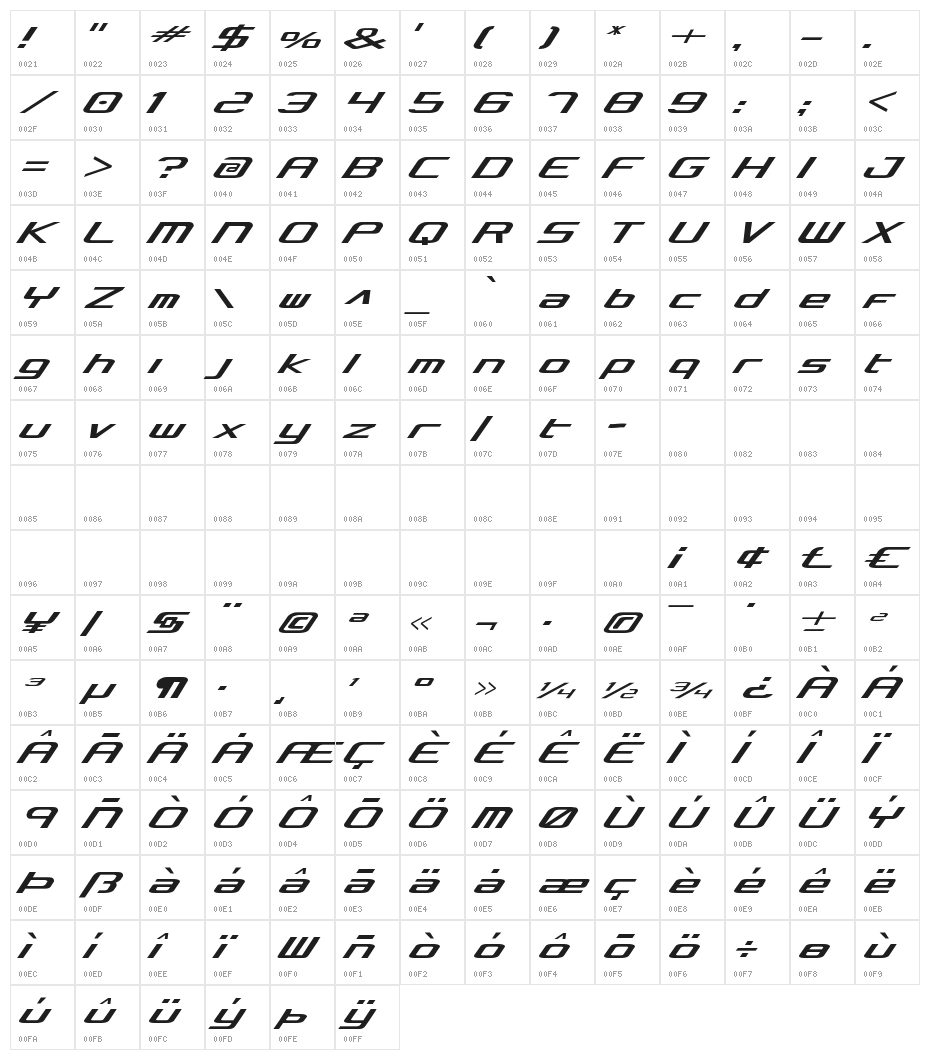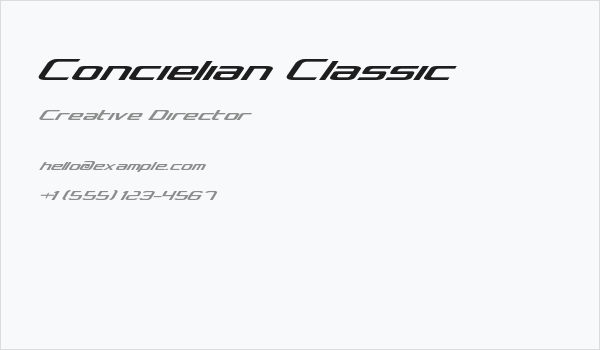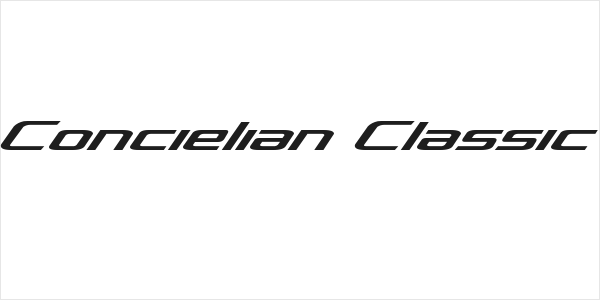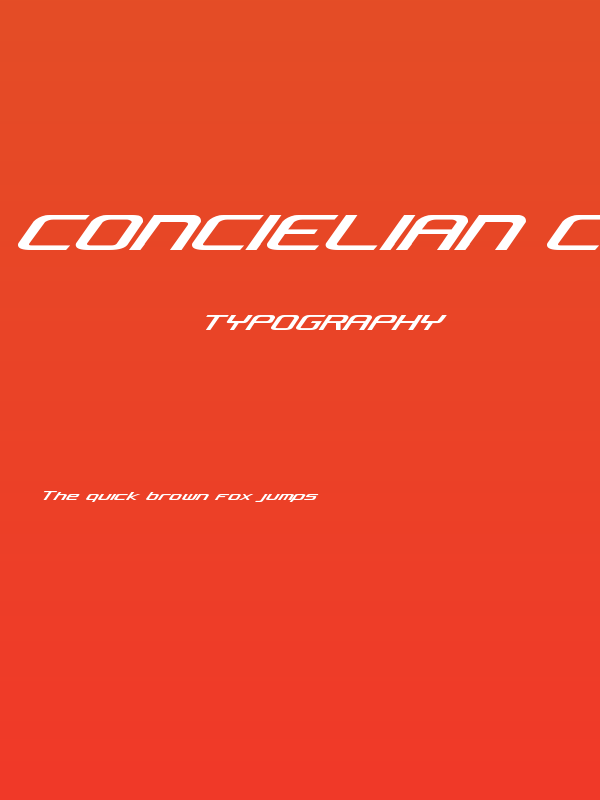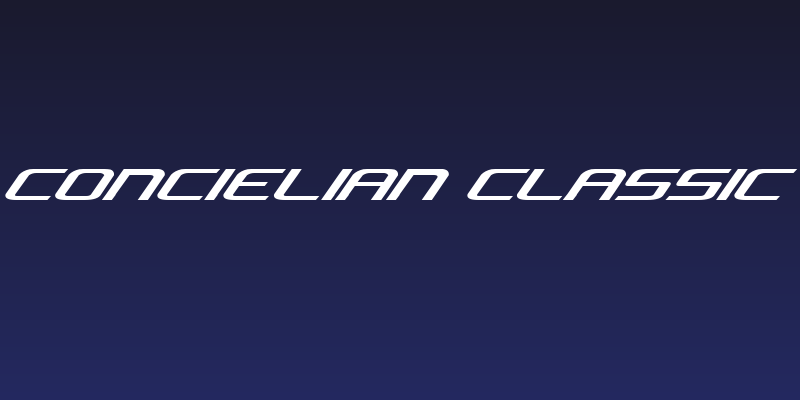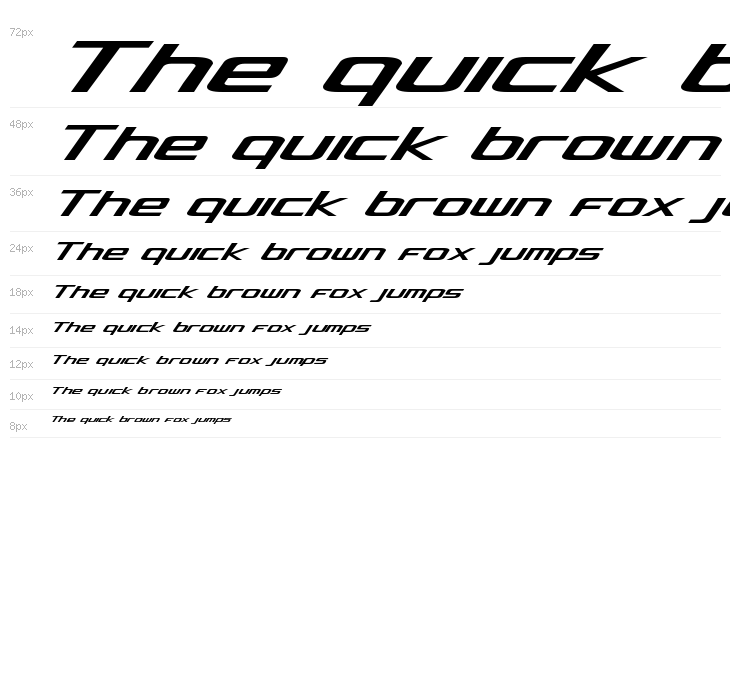
Concielian Classic Font
Concielian Classic Description
This font exhibits a sleek and modern design with a futuristic flair. The characters are slightly italicized, giving them a dynamic and forward-moving appearance. The strokes are consistent in thickness, providing a uniform look across all characters. The angular and geometric shapes of the letters contribute to a sense of precision and technology. The font maintains a balanced proportion between height and width, ensuring readability while retaining its distinctive style. Special characters and numbers are designed to match the overall aesthetic, making it suitable for a variety of applications.
| Use Case | Headlines, Logos, Digital interfaces |
| Proposed Projects | Ideal for technology branding, sci-fi themed projects, modern advertising, and digital interfaces. |